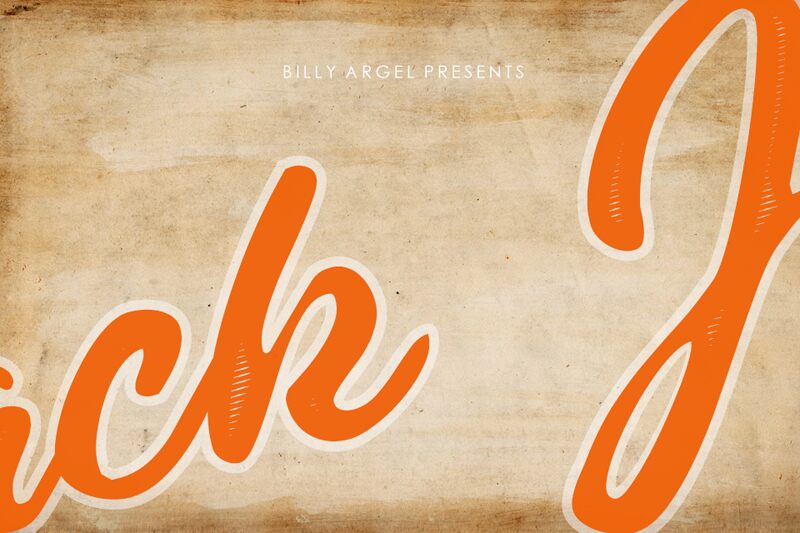
Black Jack Personal Use Regular
Black Jack by Billy Argel Fonts is a stunning brush font that exudes a unique and bold personality. This semi-bold typeface is perfect for projects that require a touch of edginess, such as music albums, movie posters, or apparel designs. The thick brush strokes and playful curves make Black Jack an ideal choice for designs seeking to convey a sense of energy and excitement. Whether you're creating logos or social media graphics, this wide font will command attention with its distinct style and flair. Try out Black Jack today to add some edge to your next project!
Three layered fonts PUA encoded, ligatures, swash and more.